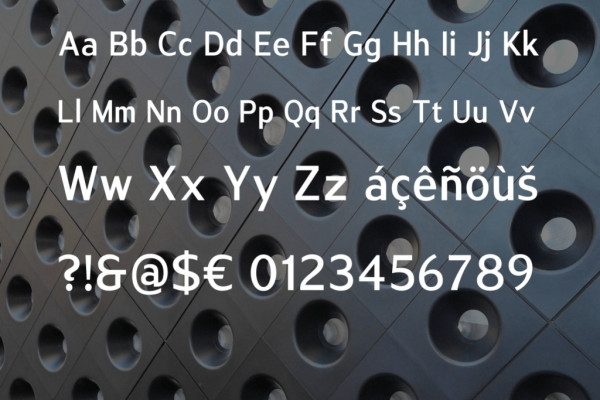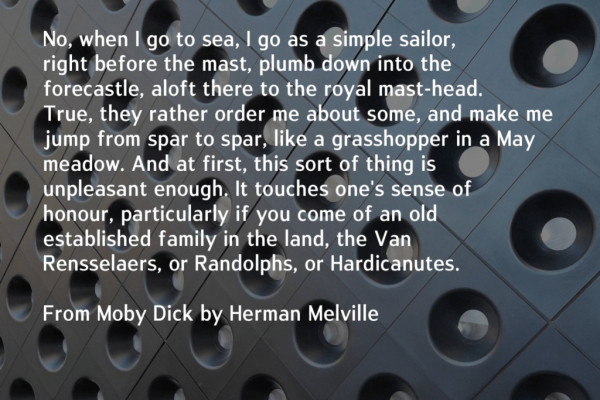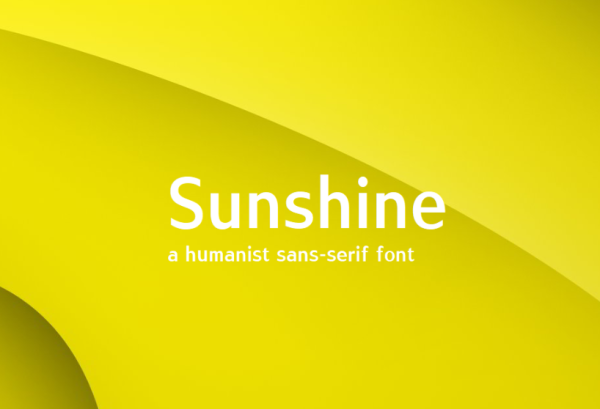
LB Sunshine Font
LB Sunshine Font, Sunshine is a humanist sans-serif font, it  stunning when combined or separately. This sans serif font style is legible and stunningly designed.